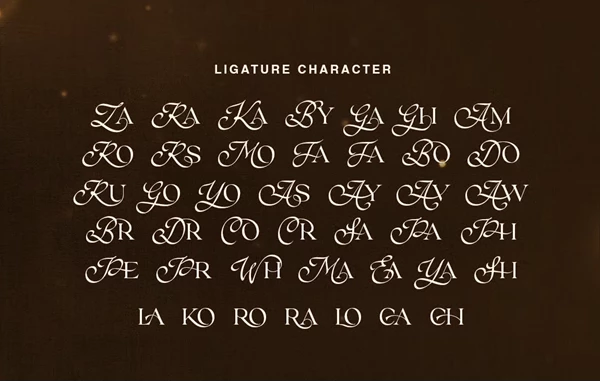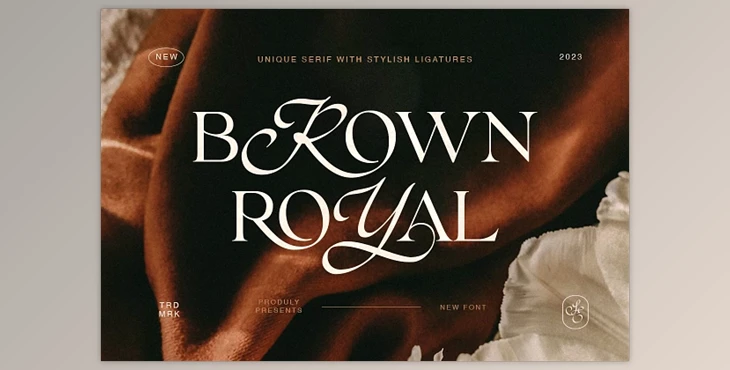
Brown Royal - Stylish Ligature Font: Introducing Brown Royal, a captivating serif font that merges stylish script uppercase with classic all-caps lowercase, creating a unique and sophisticated aesthetic. With beautiful ligatures seamlessly combining characters, Brown Royal adds a touch of luxury to any project.
This versatile font can be used for various purposes, including logos, branding, quotes, and wedding invitations. Its elegant combination of script and serif elements offers flexibility in design, allowing for both traditional and modern looks.
With multilingual support, Brown Royal ensures accessibility for diverse audiences worldwide. Improve your designs with Brown Royal's elegance and make a statement with its stylish ligatures and luxurious appeal.